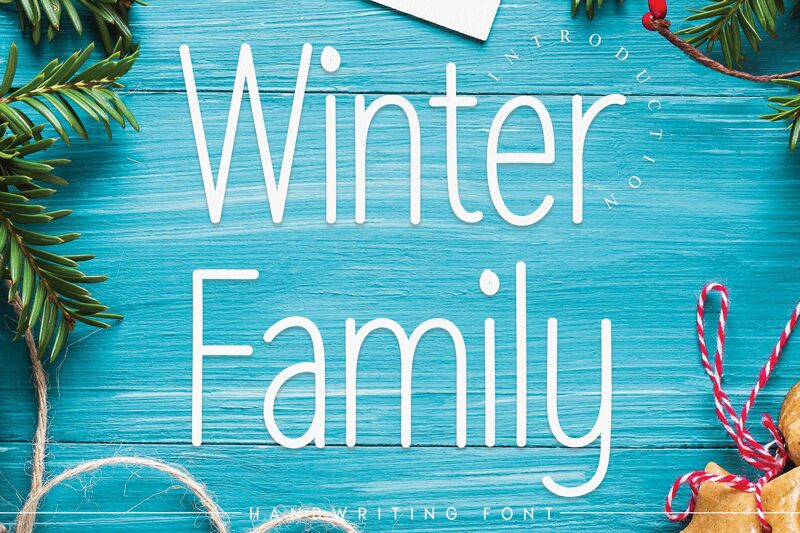
Winter Family
Winter Family font is a light display typeface designed by Scratchones.
the latest style letters are perfect for wall displays, wedding invitations, social media post logos,
advertisements, product packaging, product designs, labels, photography, watermarks, invitations, stationery,
and any project that requires taste handwriting.